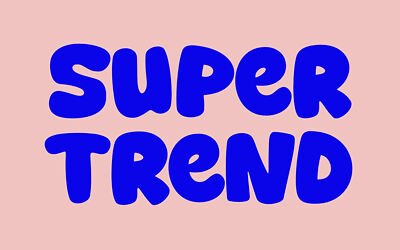
Super Easy is a bubbly hand crafted typeface charged with a bold yet fun vibe. Perfect for unmissable display text, logos, handwritten quotes, product packaging and more. With its organic and natural look, Super Easy font is ready to make a big impression.